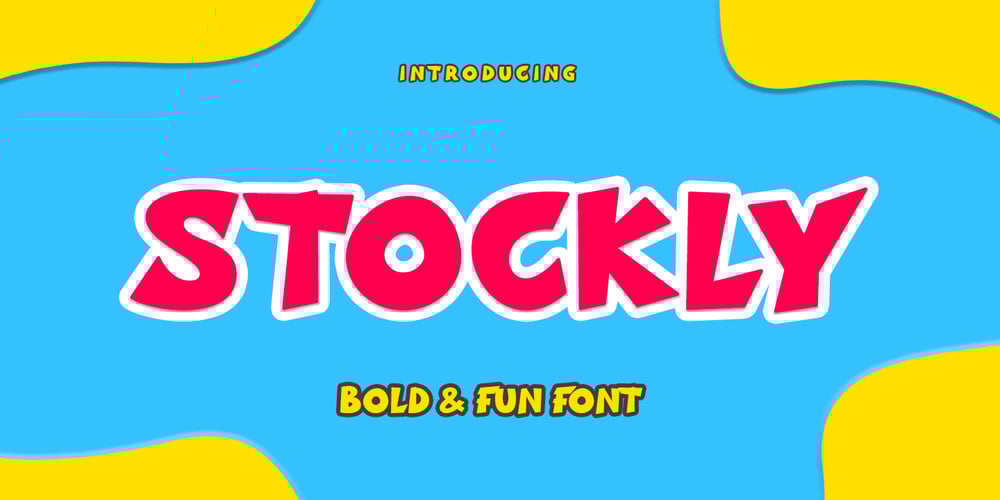
Stockly Font Family was designed by Febrianto Yuwono and published by Febri Creative. Stockly contains 1 styles and family package options. Stockly is a modern and awesome bold font with a strong and fun charm. This will change any design idea to be great and perfect! Stockly can be used for logos, branding, product labels, poster design, banner design, company names, product promotion, and much more. It has multi-lingual support.